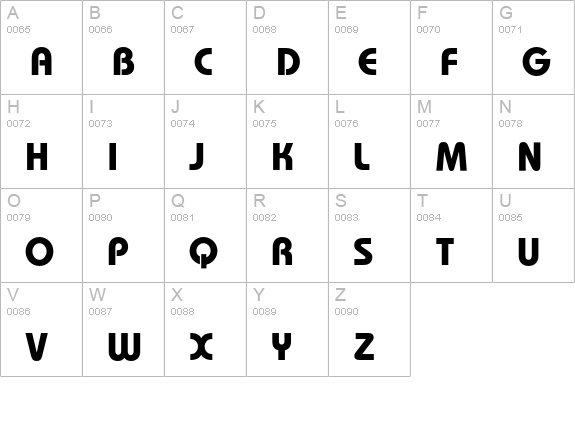
BauhausEF-Bold Font Details
BauhausEF-Bold is a strong, high-contrast variant in the BauhausEF typeface family \xE2\x80\x94 well suited to headlines, attention-grabbing titles, and strong calls-to-action.
BauhausEF-Bold is a modern and stylish font that exudes confidence and sophistication. With its bold and striking design, this typeface is perfect for making a statement in any project. Its clean lines and geometric shapes give it a sleek and contemporary look that is sure to catch the eye. Best of all, BauhausEF-Bold is available for free download at FontsMarket.com. Whether you're working on a branding project, poster design, or website layout, this versatile font is sure to make a lasting impression. Don't miss out on the opportunity to add this elegant and impactful typeface to your collection today!